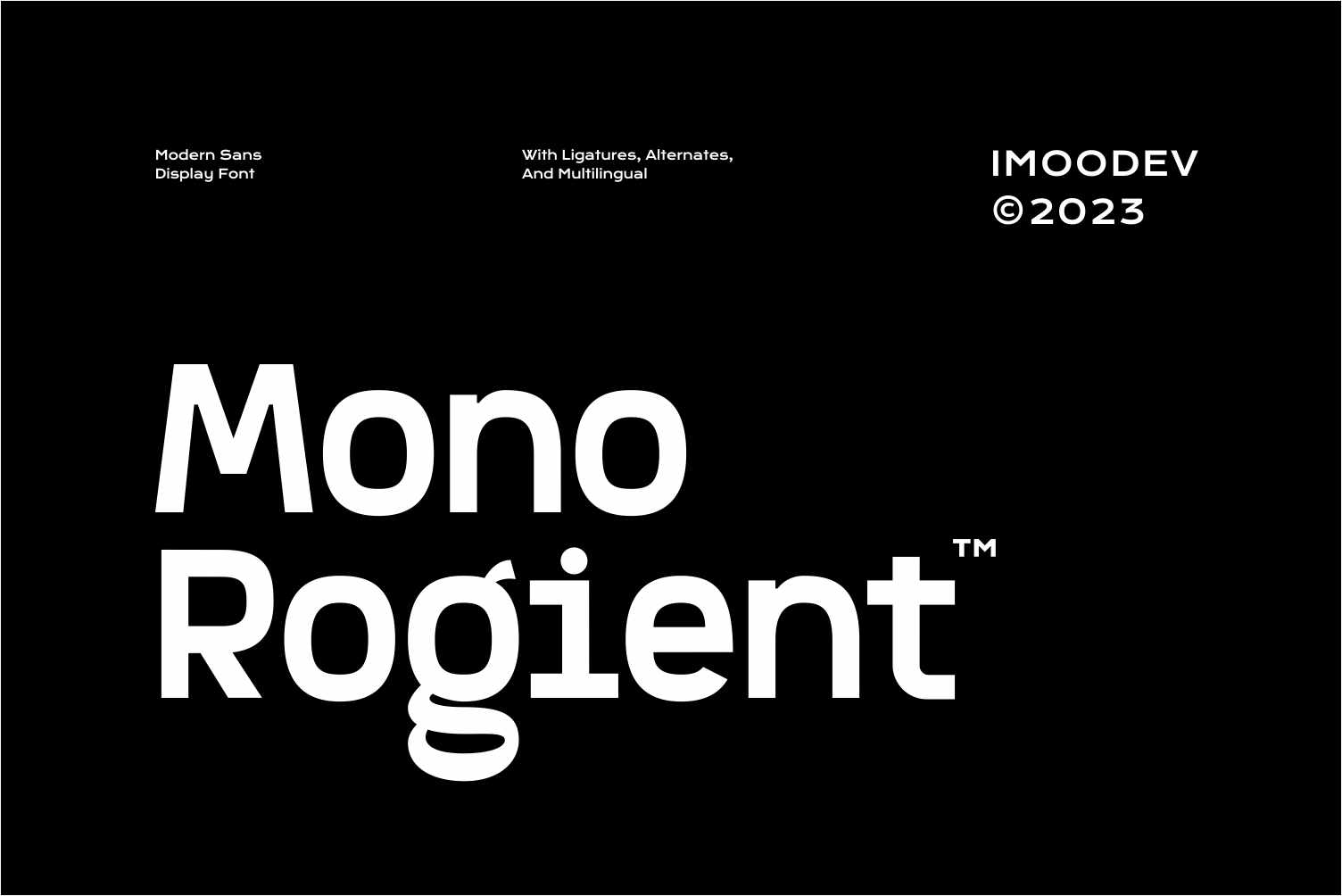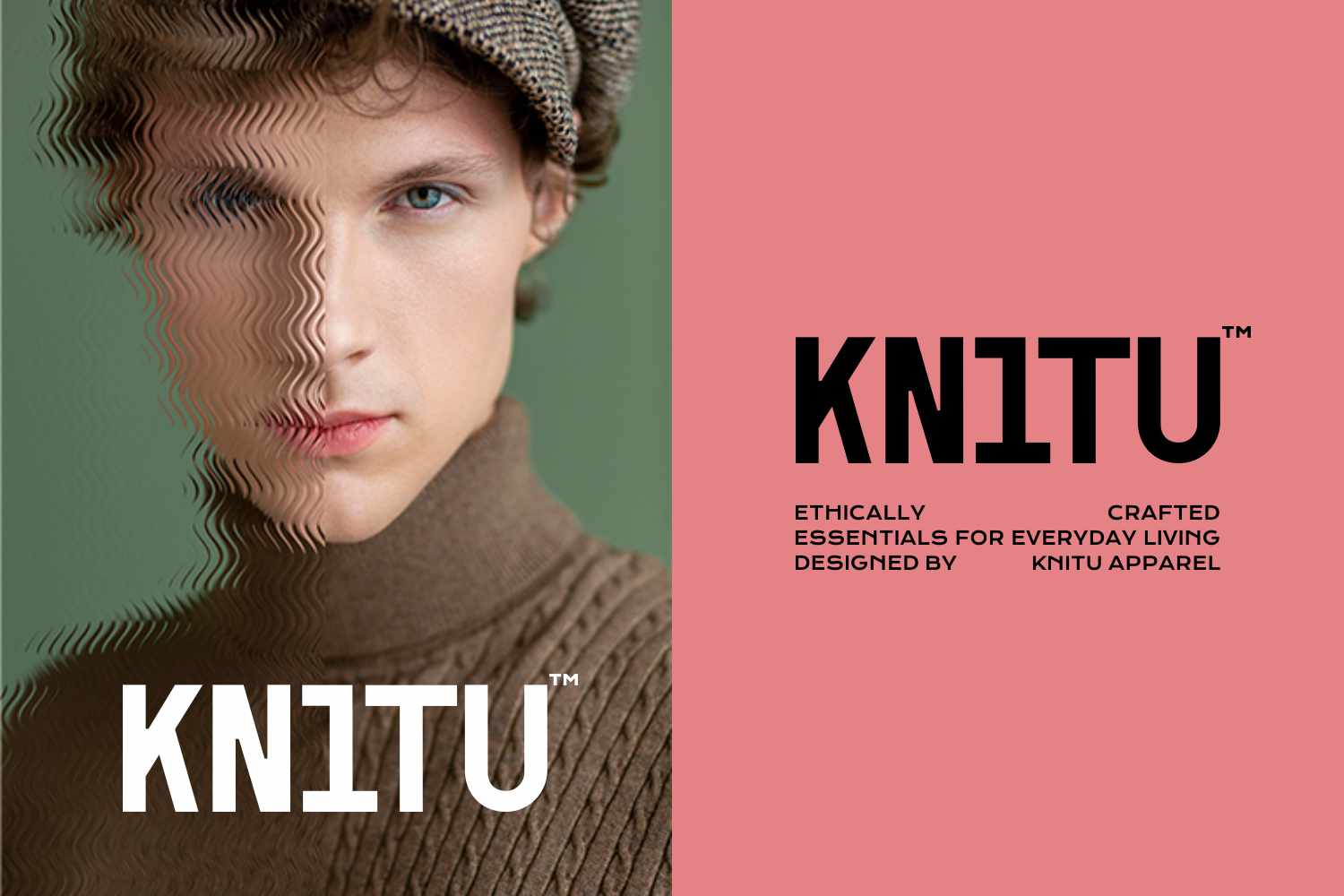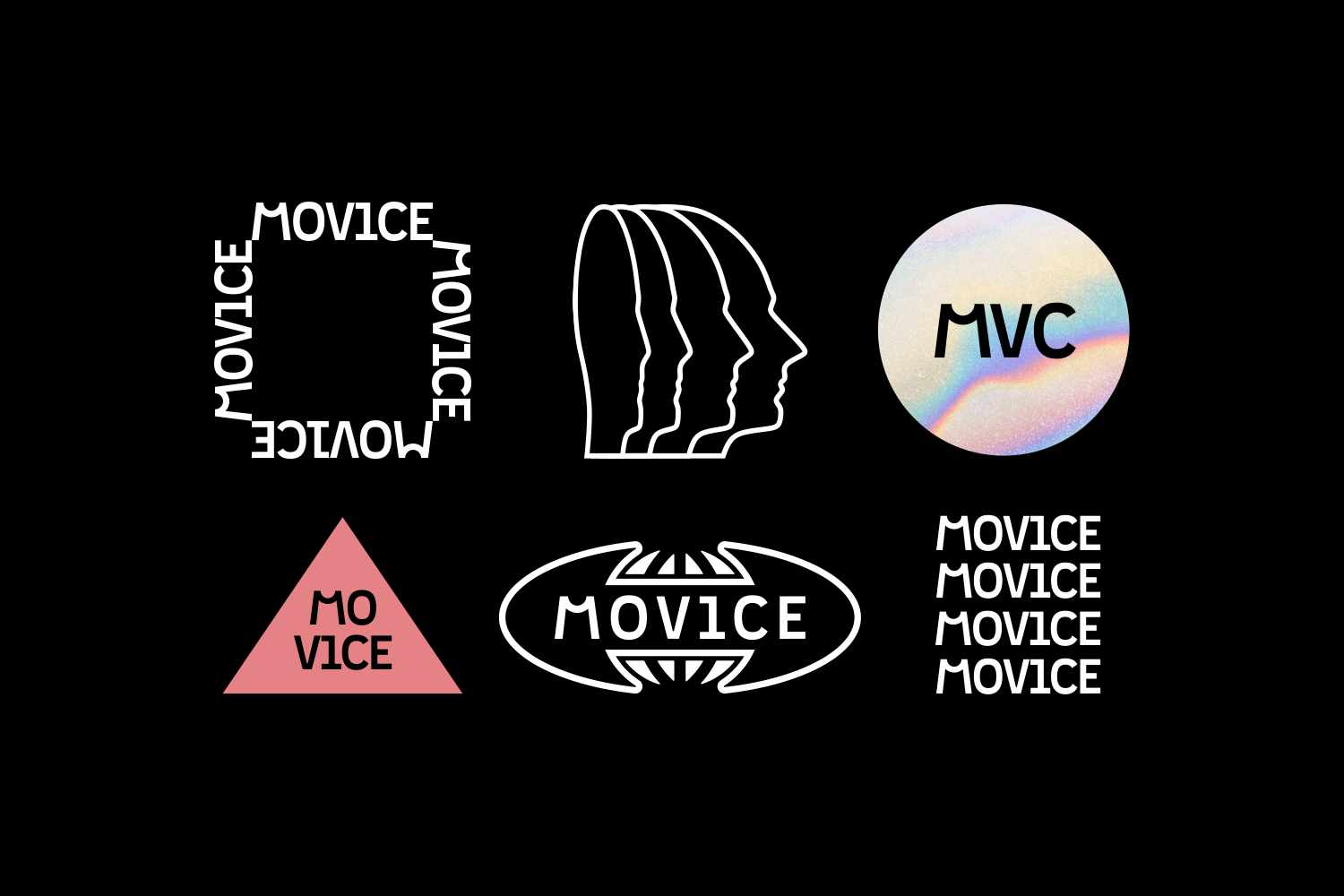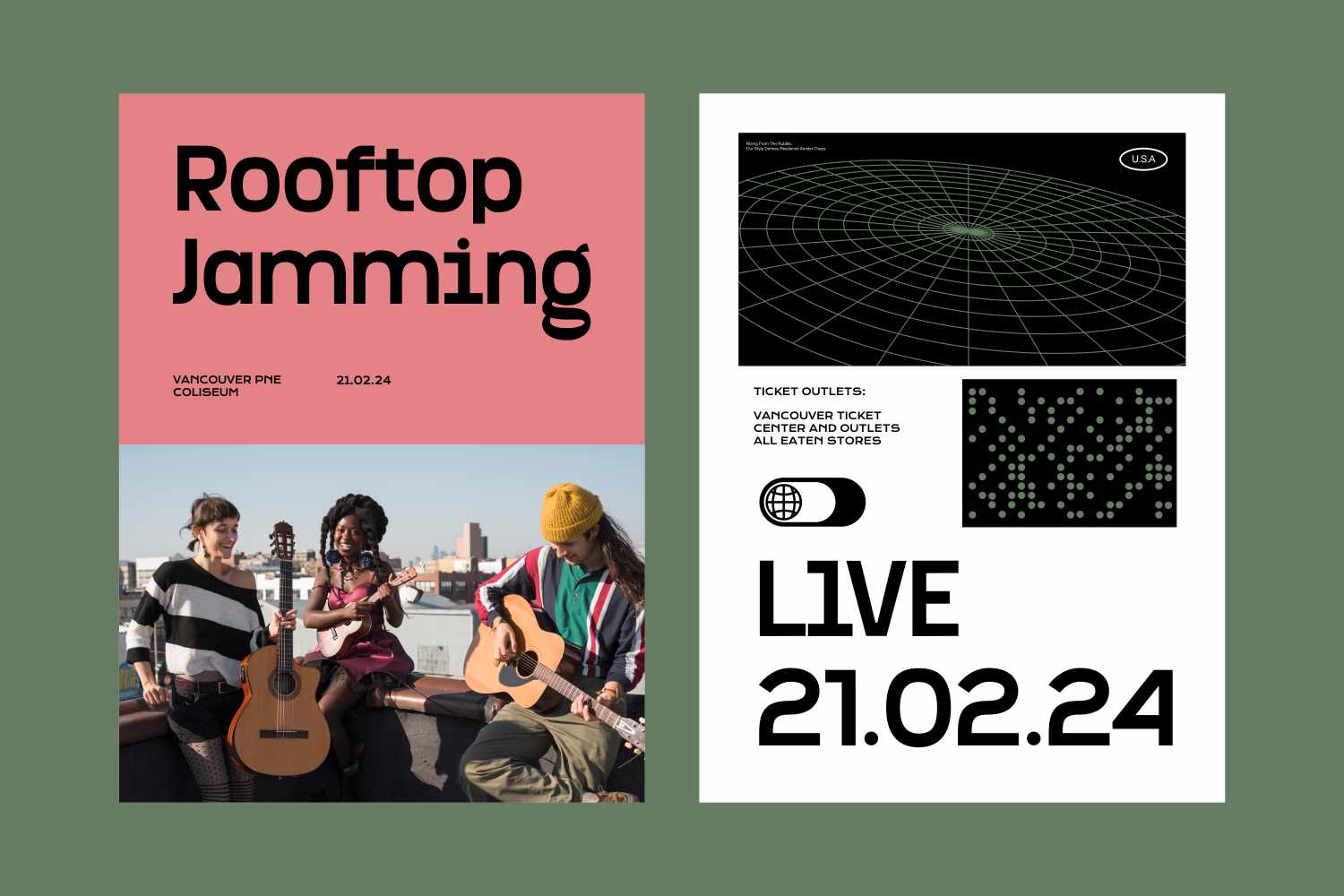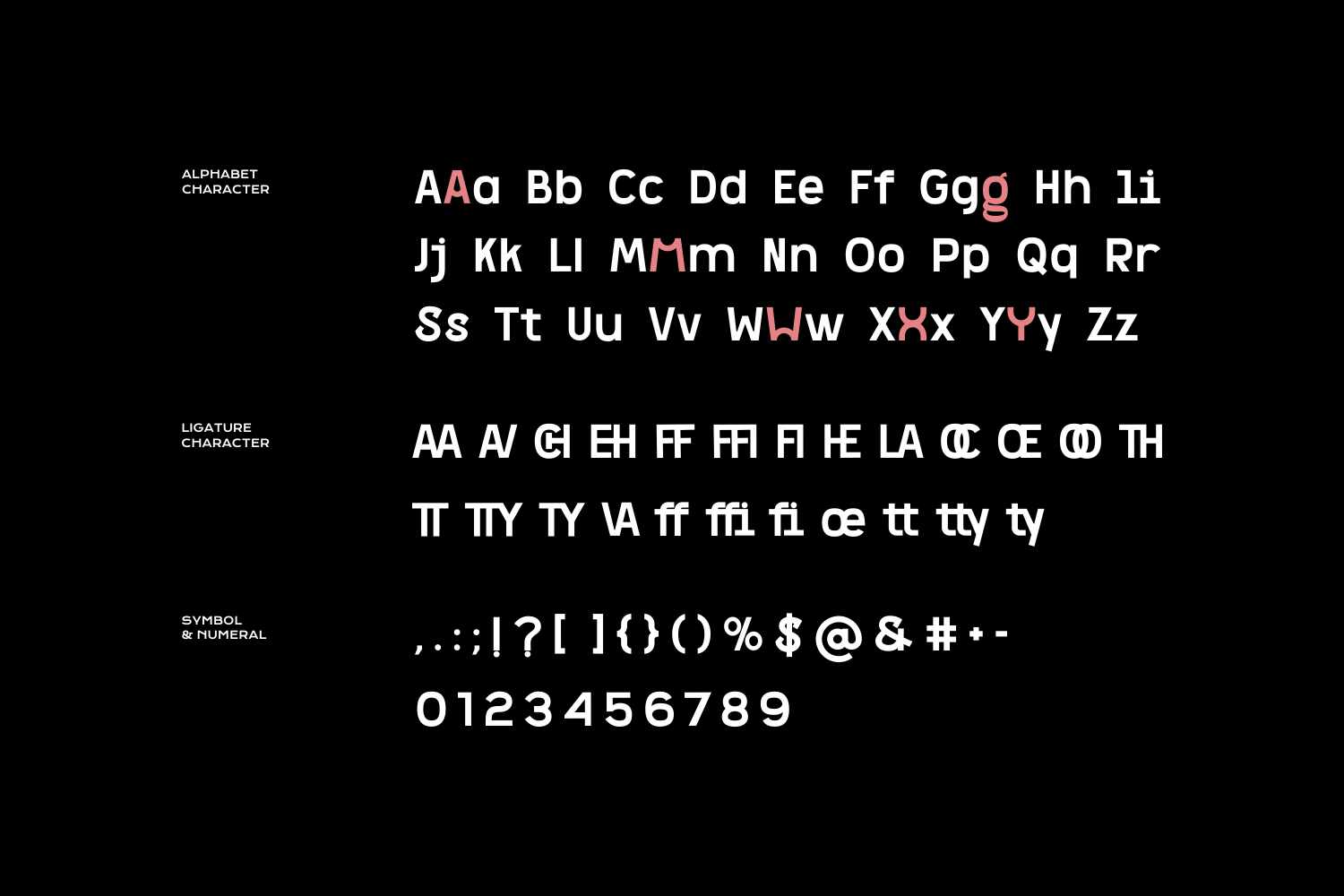
Mono Rogient is a modern sans display font designed with a clean, bold, and contemporary look. Its geometric structure and minimalist approach make it perfect for modern branding, editorial layouts, posters, packaging, and digital designs. The typeface combines simplicity with strength, ensuring high readability while maintaining a stylish personality.
Equipped with ligatures, alternates, symbols, numerals, and multilingual support, Mono Rogient offers flexibility for a wide range of creative applications. Whether used in fashion branding, tech startups, event promotions, or lifestyle products, this font delivers a sleek and professional impression. Its modern yet versatile design makes it a strong choice for designers seeking clarity and impact.
Mono Rogient